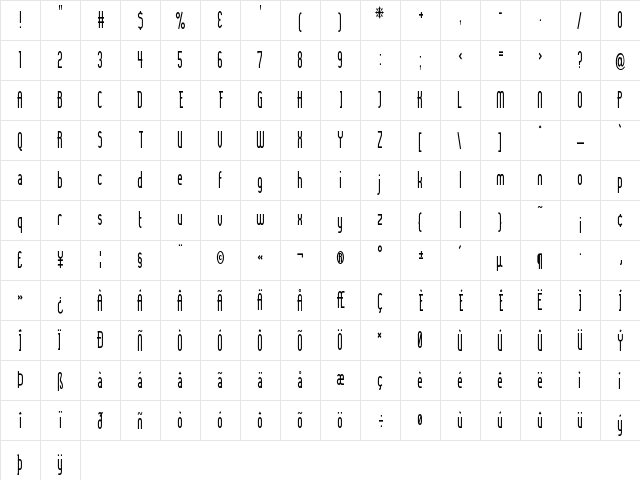
Lady Ice - Condensed Regular
Design Context for Lady Ice - Condensed Typeface
Lady Ice - Condensed offers clean, dependable letterforms without strong stylistic allegiance, making it a practical choice for designers who need flexibility. The condensed width makes it efficient for tight spaces without sacrificing legibility.